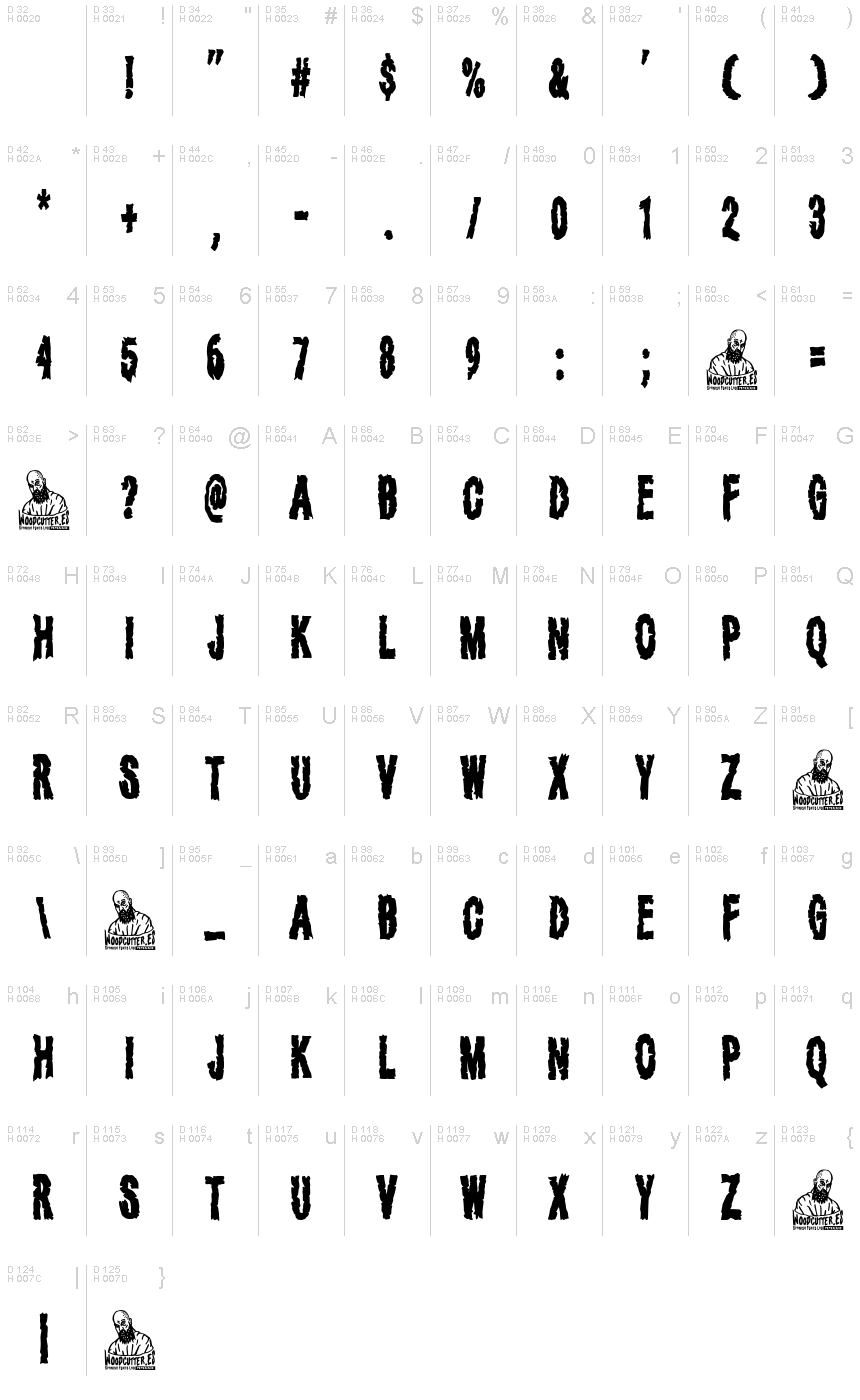
White Night Club
White Night Club emerges from the creative genius of Woodcutter, boasting a hauntingly bold character that is as captivating as it is chilling. This display font weaves an atmosphere of mystery and suspense with its eerie contours and shadowy composition. Its condensed letters stand tall and tightly packed, lending a sense of urgency and intensity to any message it conveys.
This font's spine-tingling appeal makes it an excellent choice for projects that aim to evoke thrill or horror. From the covers of ghost stories to the branding of haunted house attractions, White Night Club guarantees a gripping presence. Its formidable look can also be leveraged in movie posters, Halloween events, or gothic-themed parties where a touch of the macabre is desired. Embrace the fear factor with White Night Club—a font not for the faint-hearted but perfect for designs that dare to disturb.
White Night Club.